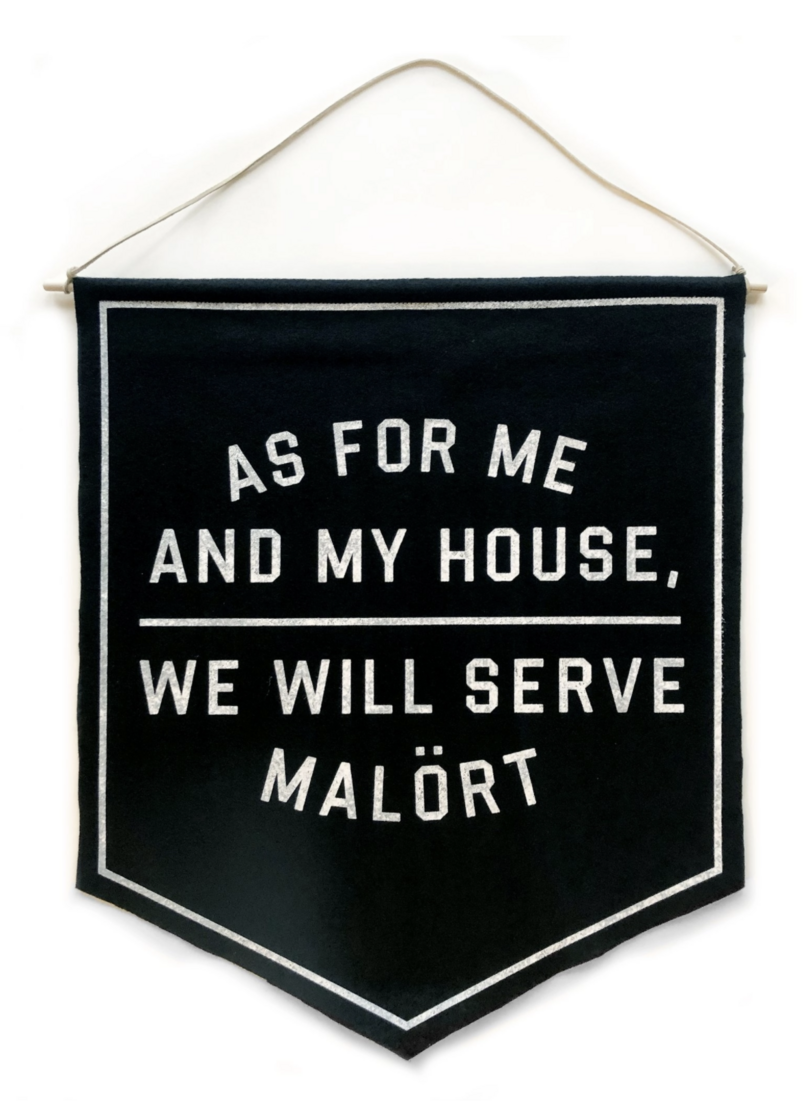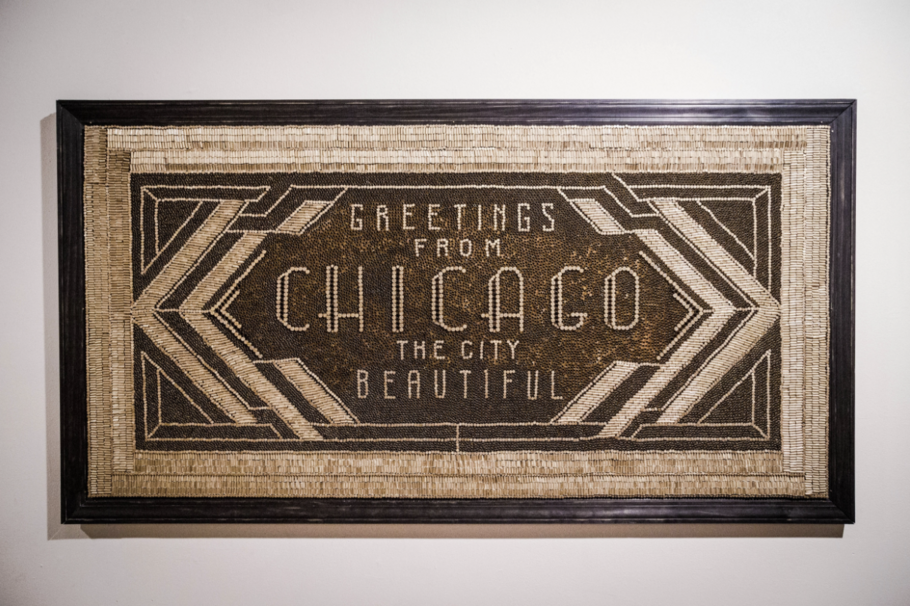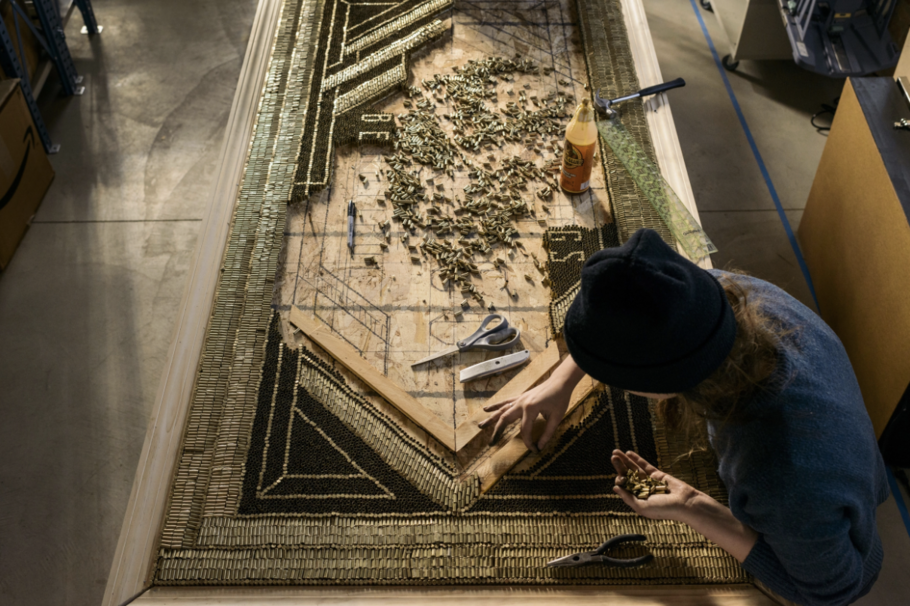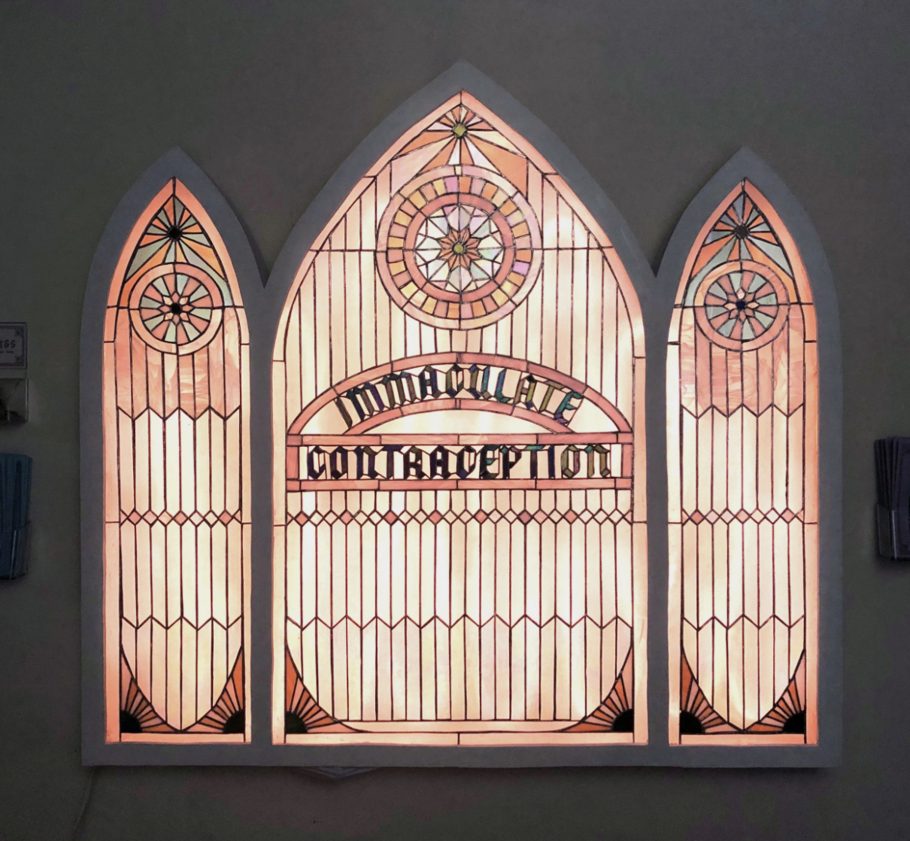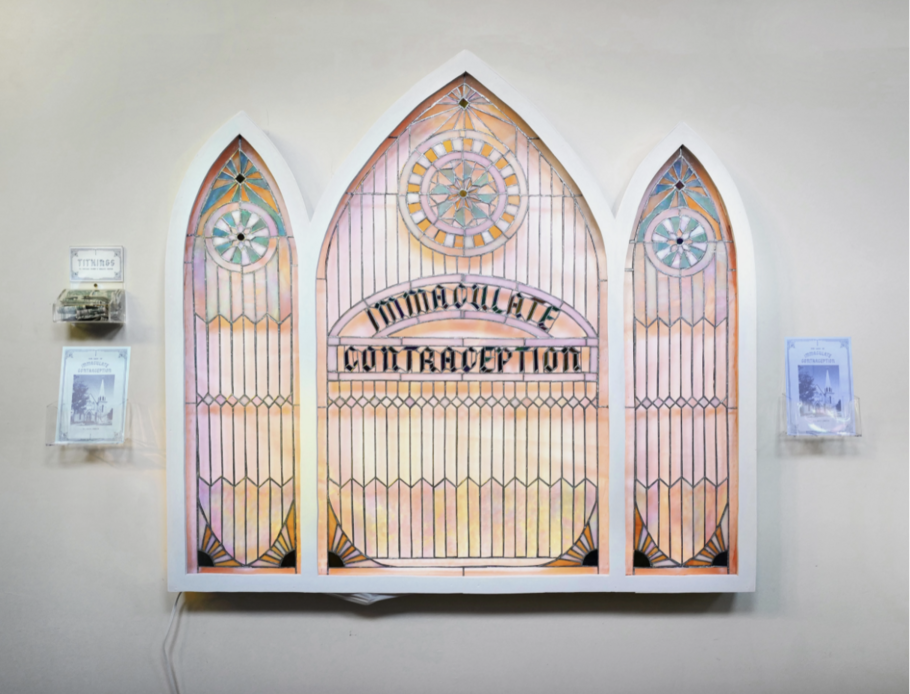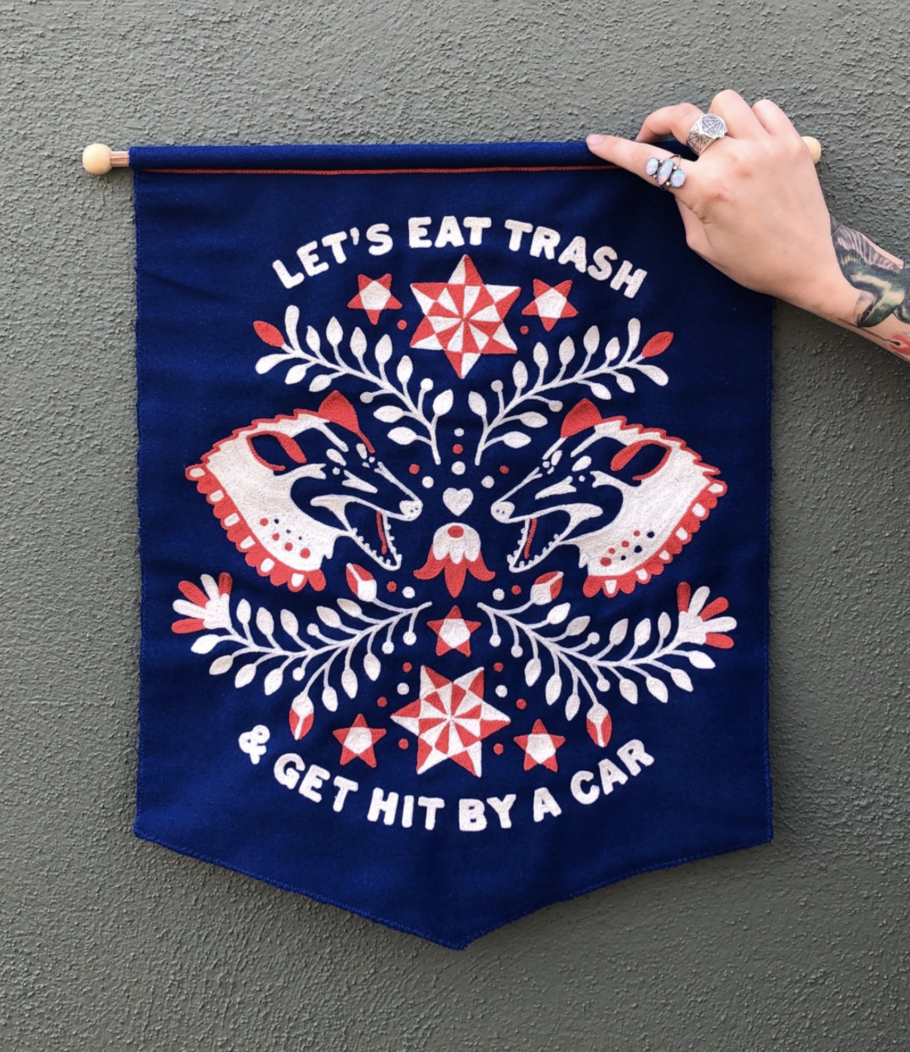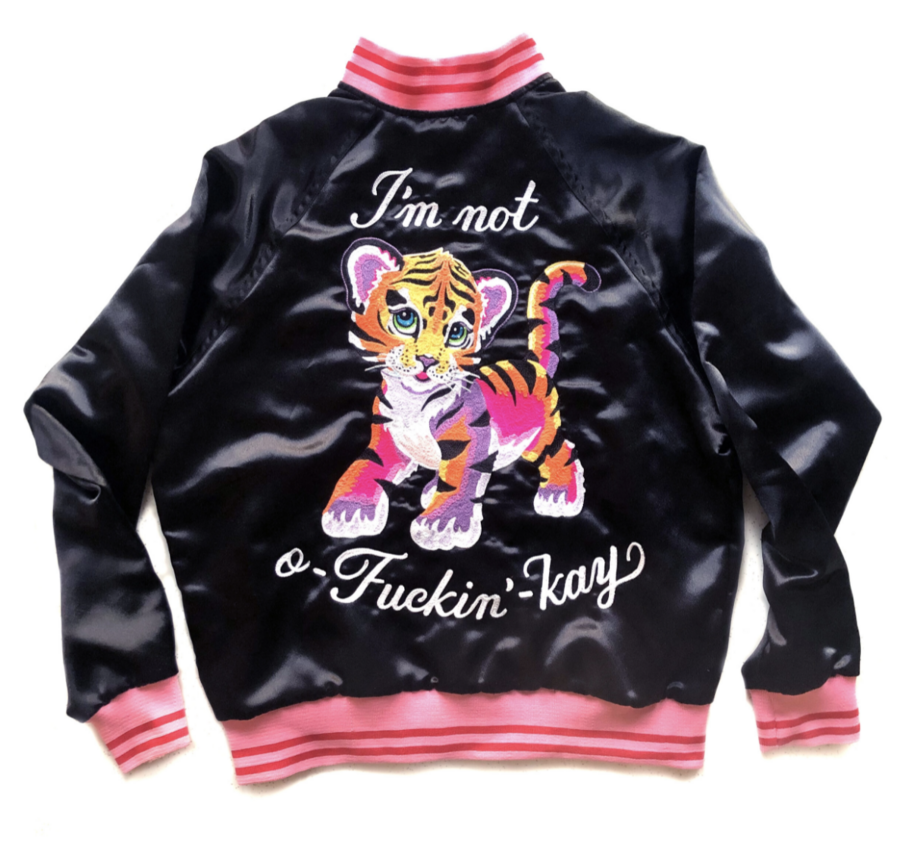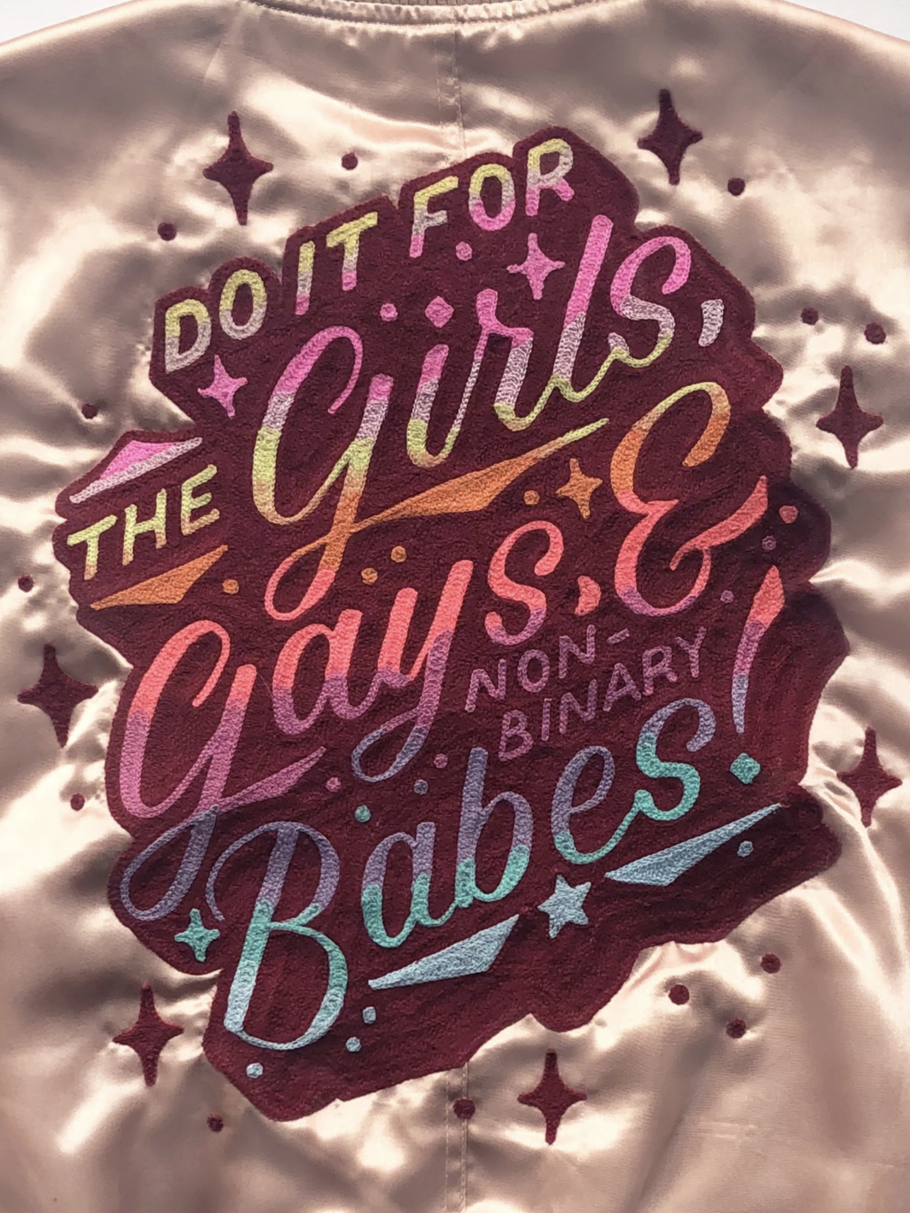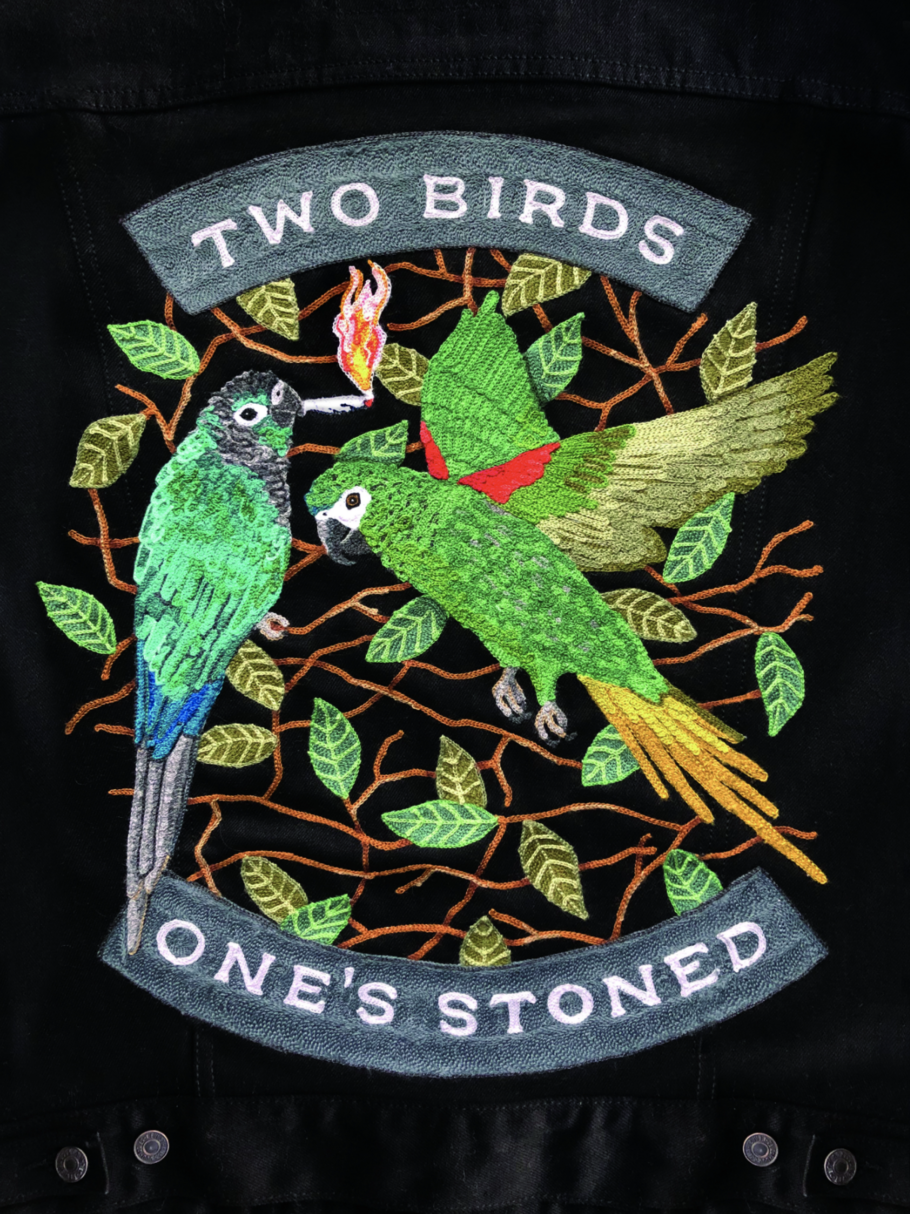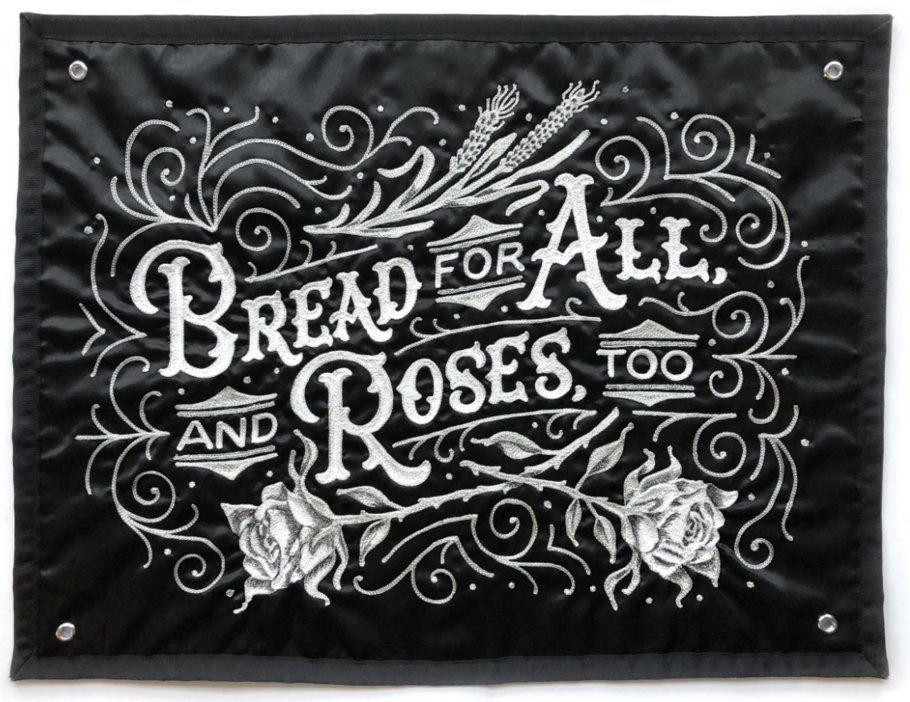
Creative Characters Ep. 3: Jenna Blazevich.
“ For me, the priority has been building a connection or an opportunity for someone to feel seen. ”
Jenna Blazevich.
In episode three, we talked with Jenna Blazevich, a Chicago-based lettering artist and the sole proprietor of Vichcraft (IG: @vichcraft), a multi-disciplinary design studio that “works right around the line between art and design to build a collection of activist-driven products.”
Jenna’s work draws from a deep well of influences, including punk rock, literature, biker culture, 70s bowling alley kitsch, even ornate calligraphy, all of which is brought to life through a mix of hand-drawn designs, chain-stitched clothing, and a sardonic sense of humor. But the heart of Vichcraft is that activist’s point of view, which is expressed not only through the words and phrases she illustrates but also in her involvement with local community non-profits and organizations.
“I’ve been running my business for six years, so there’s a lot of different places I’ve drawn inspiration from, for a variety of different reasons,” Blazevich told us. “For me, the priority has been building a connection or an opportunity for someone to feel seen.”
In the episode, we discuss several pieces Jenna has created over the years, including “The City Beautiful,” an installation inspired by the Chicago World’s Fair and crafted with 27,000 .22 caliber bullet casings; and “Immaculate Contraception,” comprised of hand-constructed iridescent stained glass and created for Typeforce 10 in Chicago.
The core of Jenna’s business is arguably her chain-stitched banners and clothing, which she creates on an 80-year old machine. She credits Ana Stone for introducing her to chain stitching about two-and-a-half years ago. Stone has since become a mentor and “chain stitch sister/partner in crime,” and even sold Jenna the machine she uses today.
“I’m really excited because there are so few ways to actually collaborate with people with all the limitations that are in place,” she told us, “As a creative person in general, for better or for worse I usually just think of projects through the lens of what I can accomplish myself. So I’m really excited to involve so many other talented people and also involve what they care about as people, too, and that we’ll use all of the money that’s raised to reinvest into organizations that are doing really important work.”
Lastly, Jenna contacted us a few weeks after the recording with a correction of urgent importance. “Right after we were done recording, my husband—dramatically—said, ‘I heard you say something that was very incorrect …’ I had said that a ‘Chicago Handshake’ is a can of Hamm’s and a shot of Malört, and it is *in fact* a can of Old Style,” not Hamm’s, she wrote.
Chicago, go easy on her. And if you’ve never heard of Malört, well, listen in and you will.